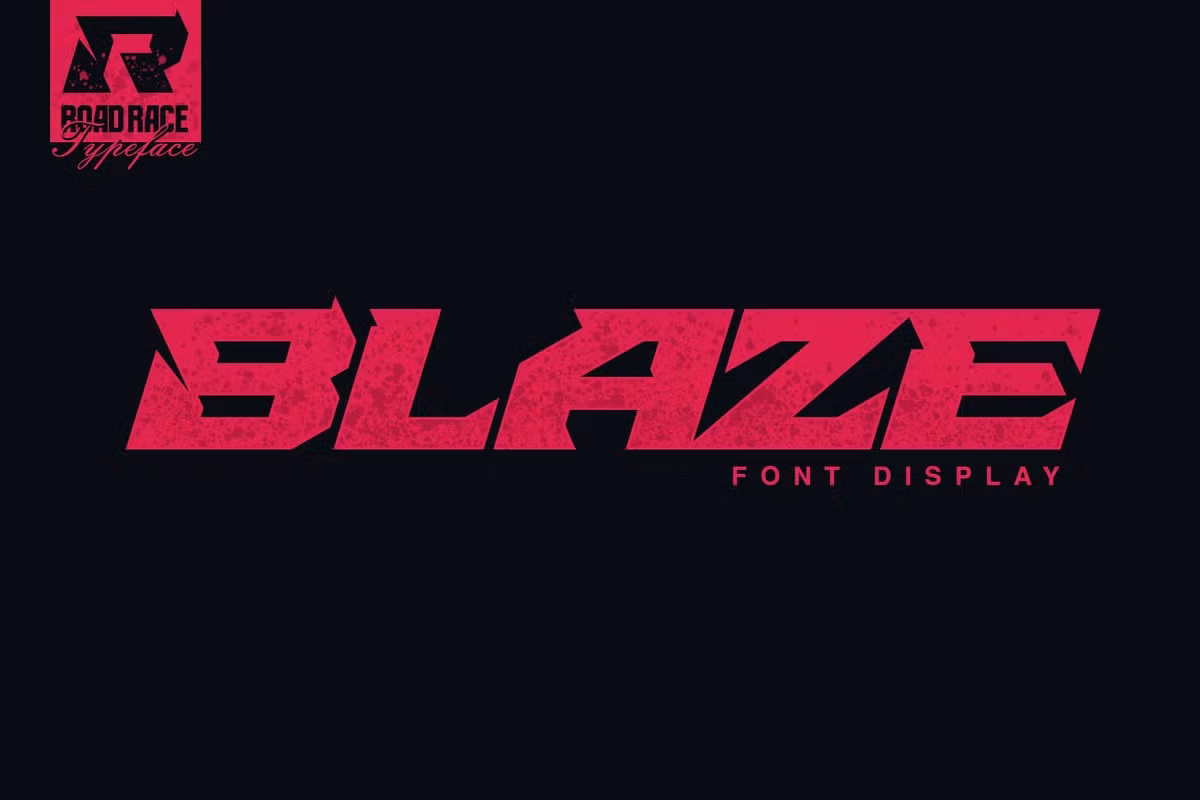
Please note, to use this font for commercial purposes, you must purchase the full version. Blaze is a bold and fiery font that captures the intensity and energy of its name. With its strong letterforms and dynamic design, this font is perfect for logos, headlines, posters, and branding materials that need to make a powerful statement. Whether you're creating a fiery brand identity or an attention-grabbing advertisement, Blaze adds strength and character to your work. Test it out and enjoy free download access for personal use. Experience the bold power of Blaze Font Free Download before purchasing the commercial license. Ignite your designs with the striking style of Blaze.